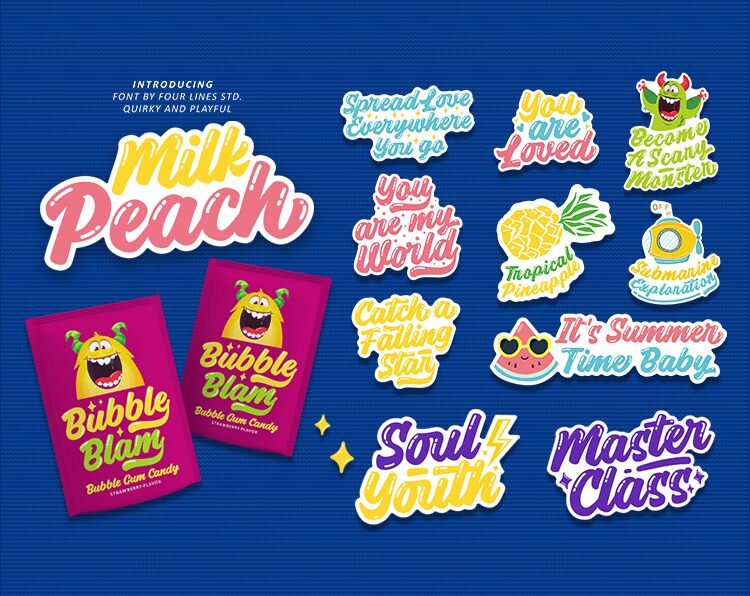
Milk Peach font by Four Lines is a striking smooth brush typeface that exudes bold personality. Its fluid, hand-drawn strokes convey a sense of elegance and creativity, making it perfect for projects seeking a touch of artistic flair. The bold weight enhances its presence, ensuring readability while providing a distinctive look.
This free font can be seamlessly integrated into various creative applications such as branding, packaging design, or social media graphics. Its unique style adds character to any project, drawing attention without overpowering the overall design.